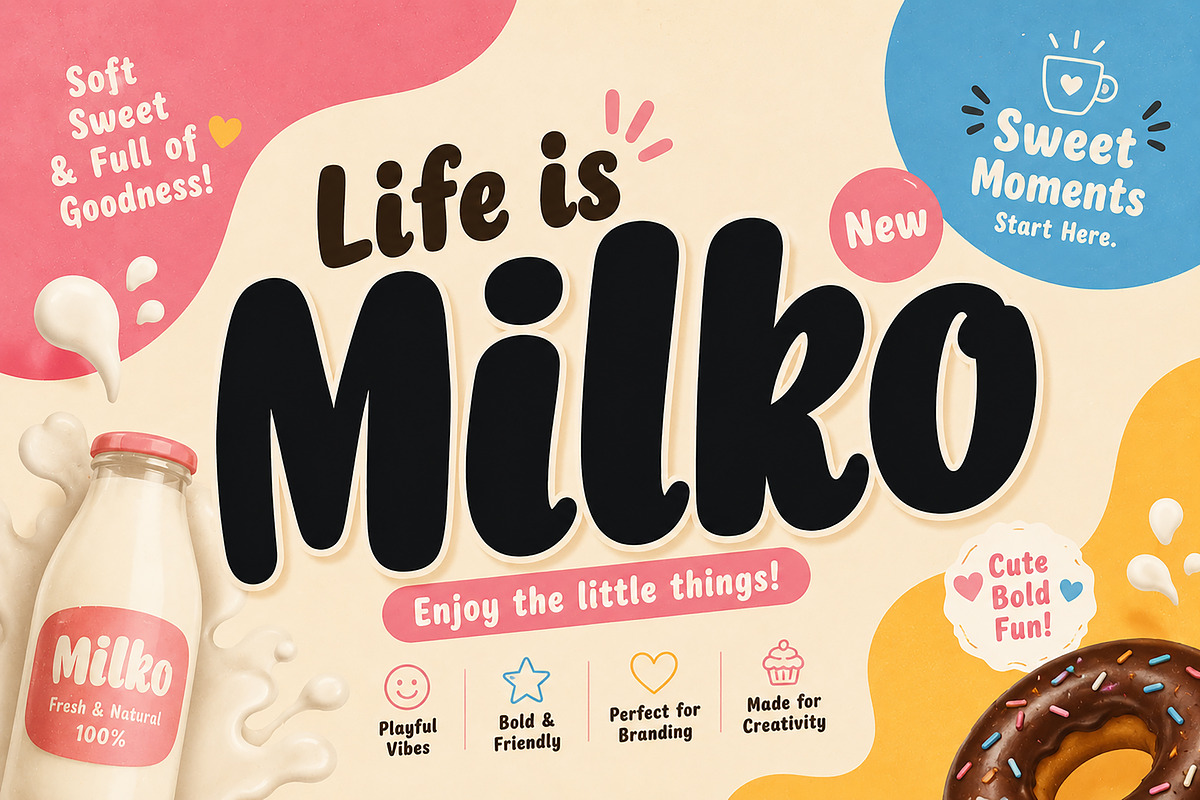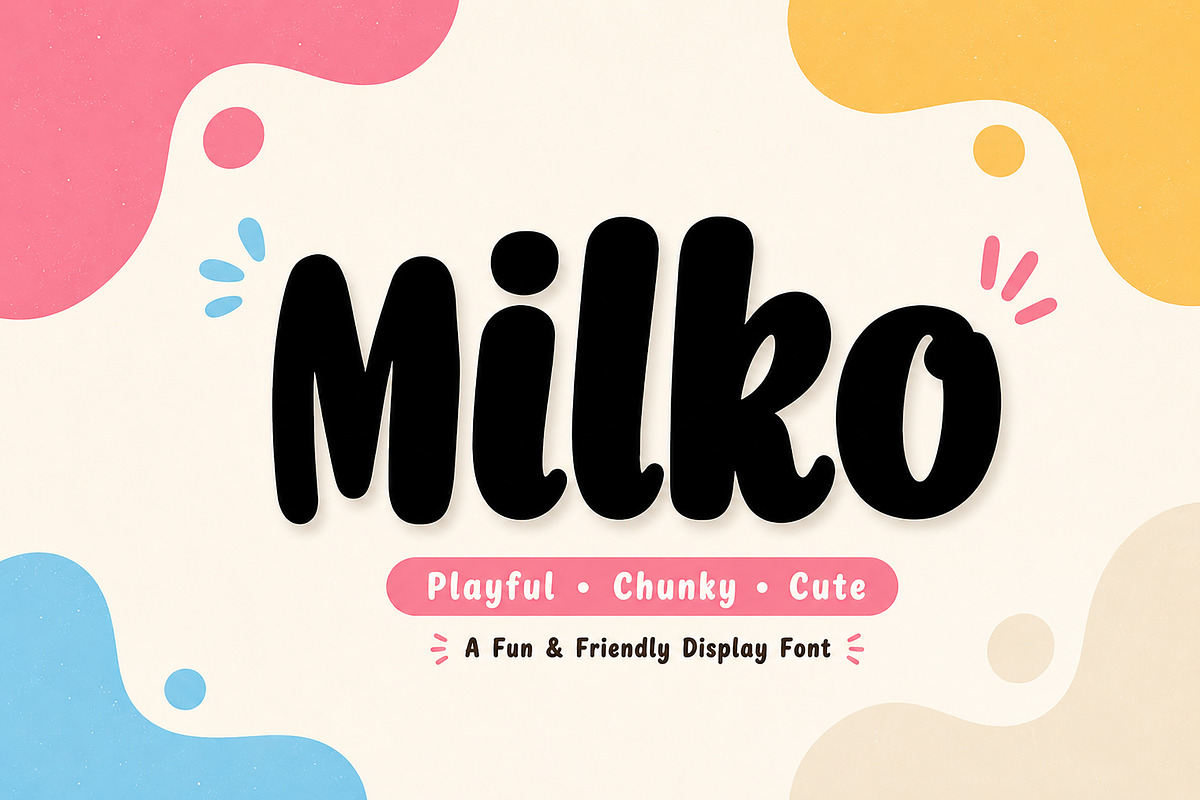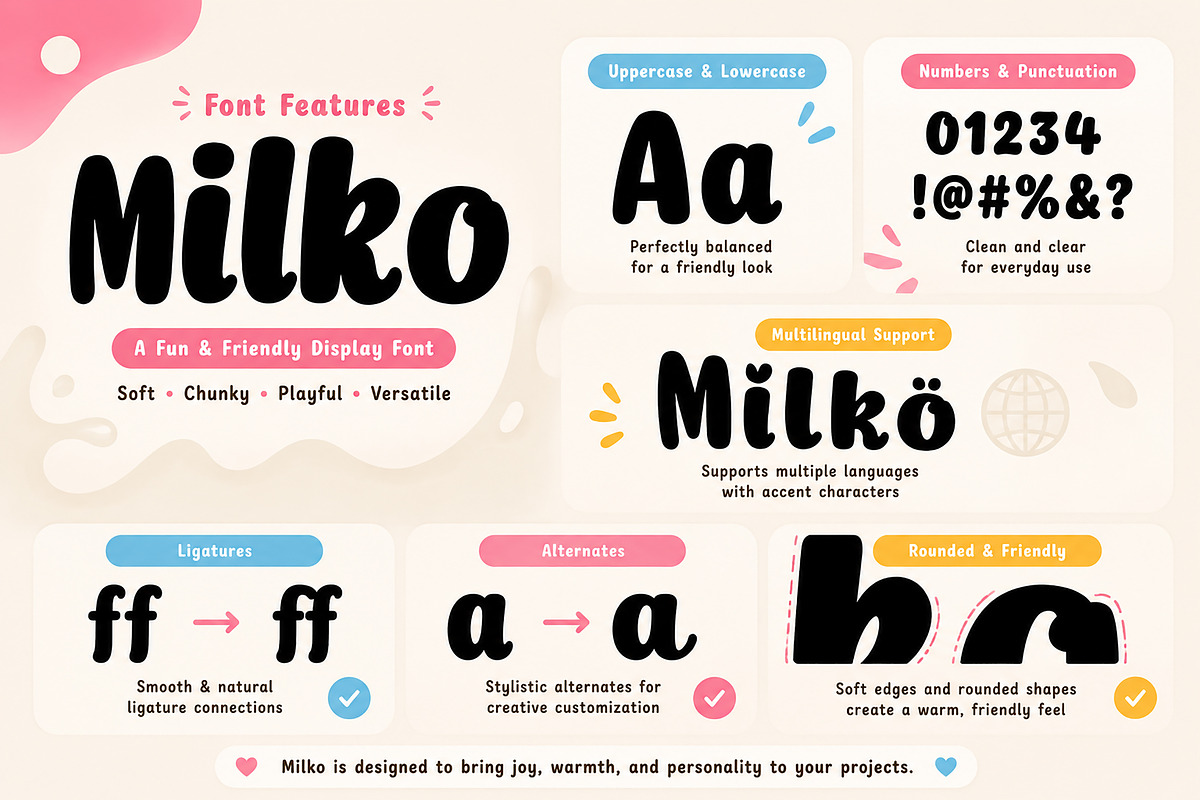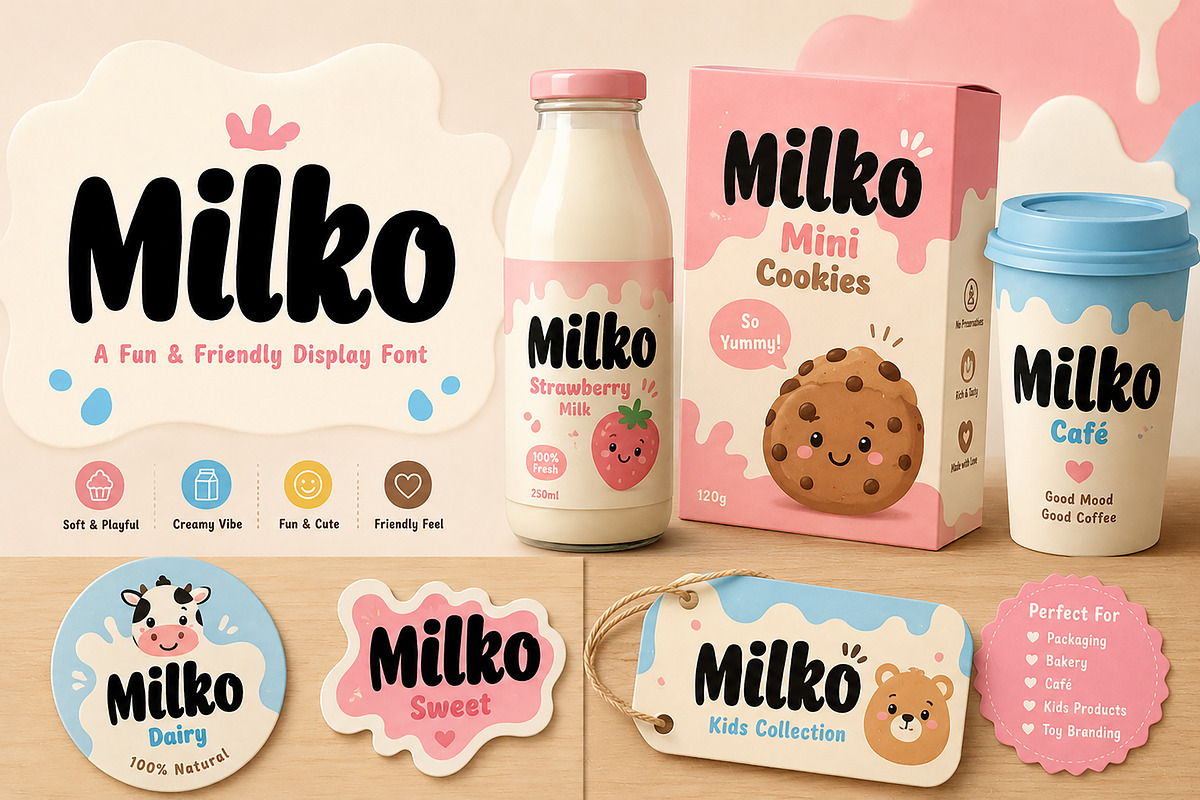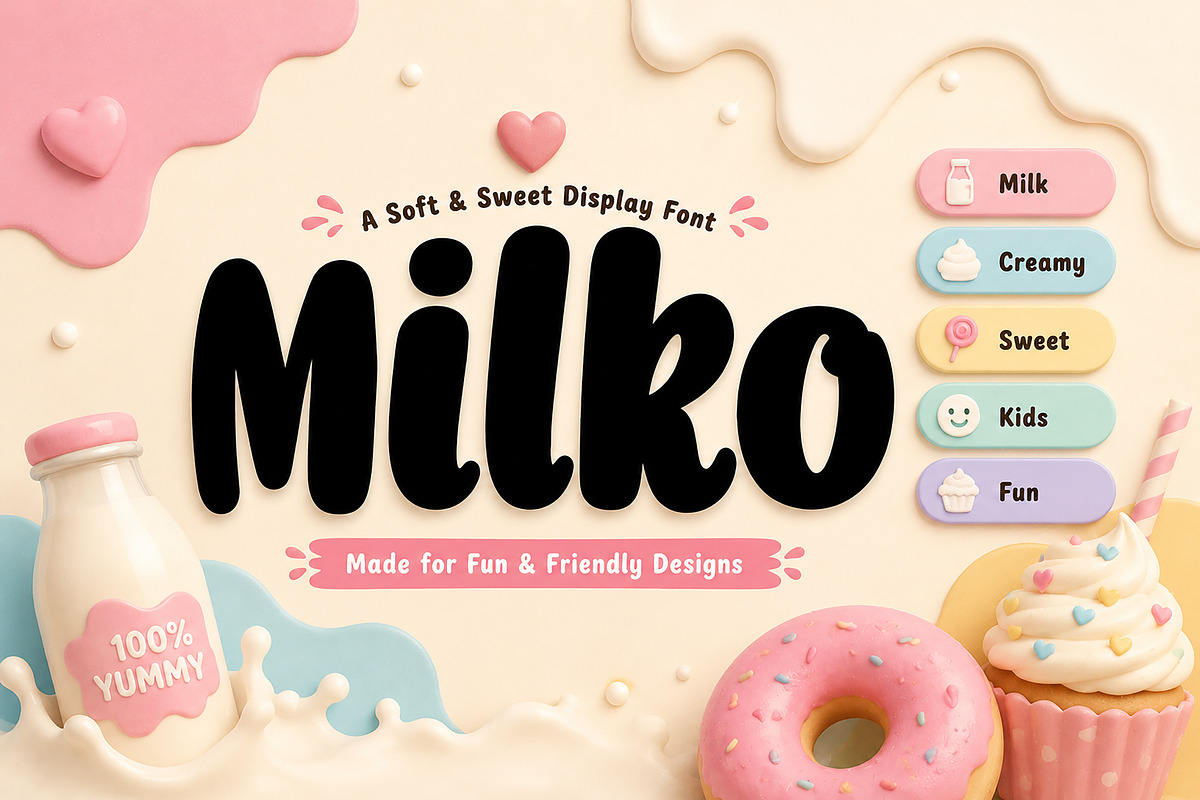
Milko
Milko is a bold, playful, and sweet display font with chunky rounded letters—perfect for kids branding, bakery packaging, café logos, and fun creative projects.
Milko is a playful, chunky, and friendly display font inspired by soft creamy textures, sweet desserts, and fun branding styles. Designed with bold rounded edges and a hand-drawn feel, Milko brings warmth, joy, and personality to any creative project.
Its smooth curves and thick letterforms make it perfect for eye-catching headlines, kids branding, food packaging, café logos, toy products, sticker designs, social media posts, and playful merchandise.
Whether you're creating a dessert brand, children’s product, or a fun visual identity, Milko adds a soft, sweet, and energetic touch to your designs.
• Kids Branding
• Bakery Packaging
• Café Logos
• Dessert Labels
• Toy Branding
• Sticker Design
• T-shirt Design
• Social Media Graphics
• Product Packaging
• Posters & Headlines
• Uppercase & Lowercase
• Numbers & Punctuation
• Ligatures
• Stylistic Alternates
• Smooth Rounded Letterforms
Bring sweetness, fun, and creativity into your next project with Milko.